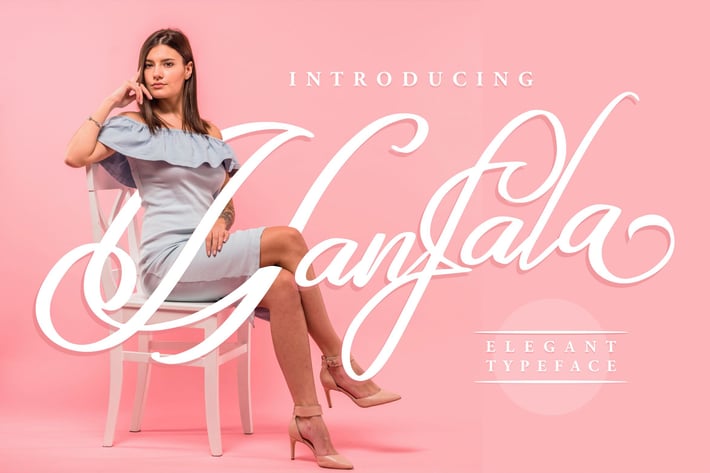
Hanfala | Elegant Script Font
Hafala | Elegant Script Font with a calligraphy style, So beautiful on invitation like greeting cards, branding materials, business cards, quotes, posters, and more!
The alternative characters were divided into several features such as Stylistic Sets, Stylistic Alternates, Contextual Alternate, SWASH and Ligature. The Open Type features can be accessed by using Open Type savvy programs such as Adobe Illustrator, Adobe InDesign, Adobe Photoshop Corel Draw X version, And Microsoft Word. And this Font has given PUA unicode (specially coded fonts). so that all the alternate characters can easily be accessed in full
Hundred of glyphs